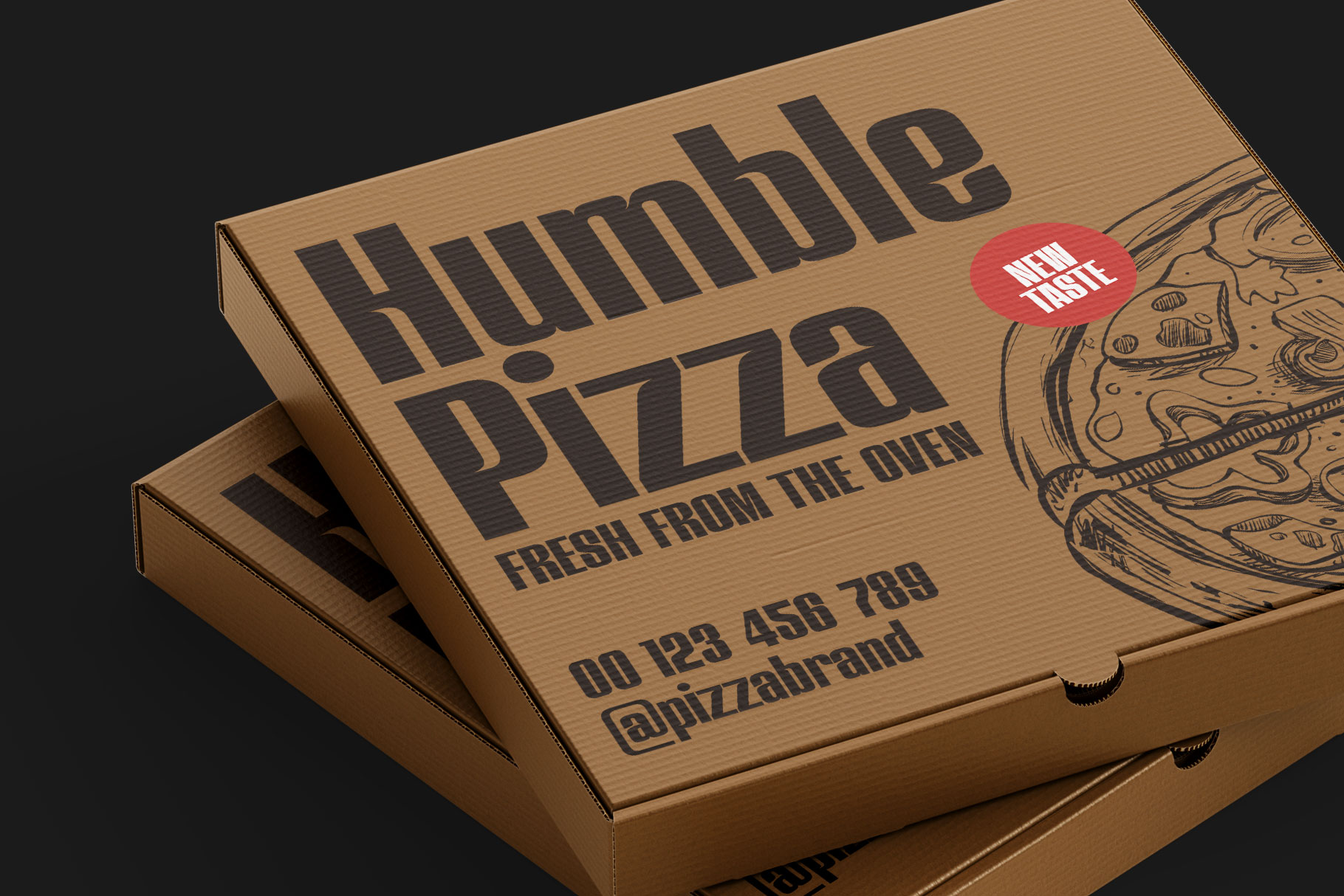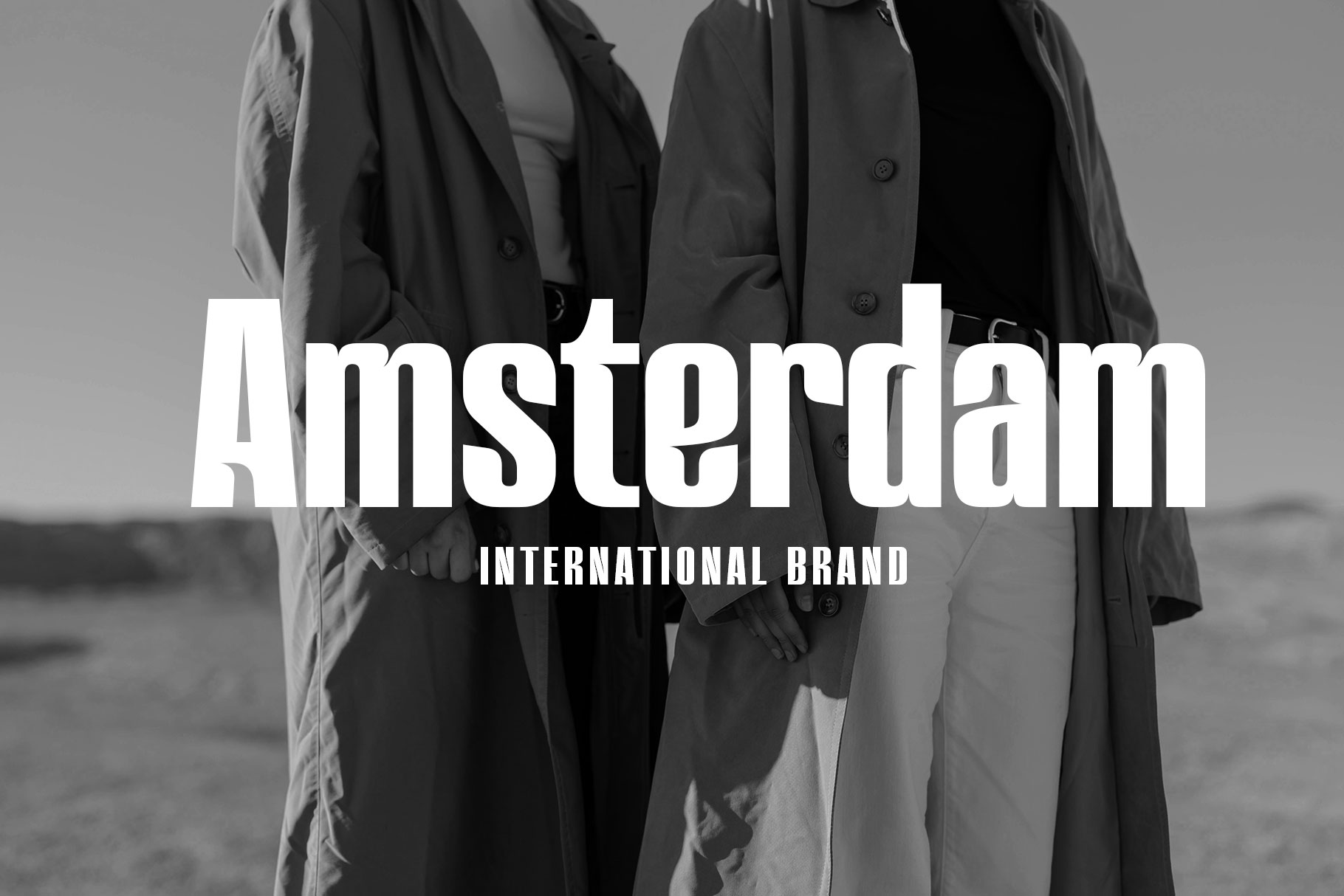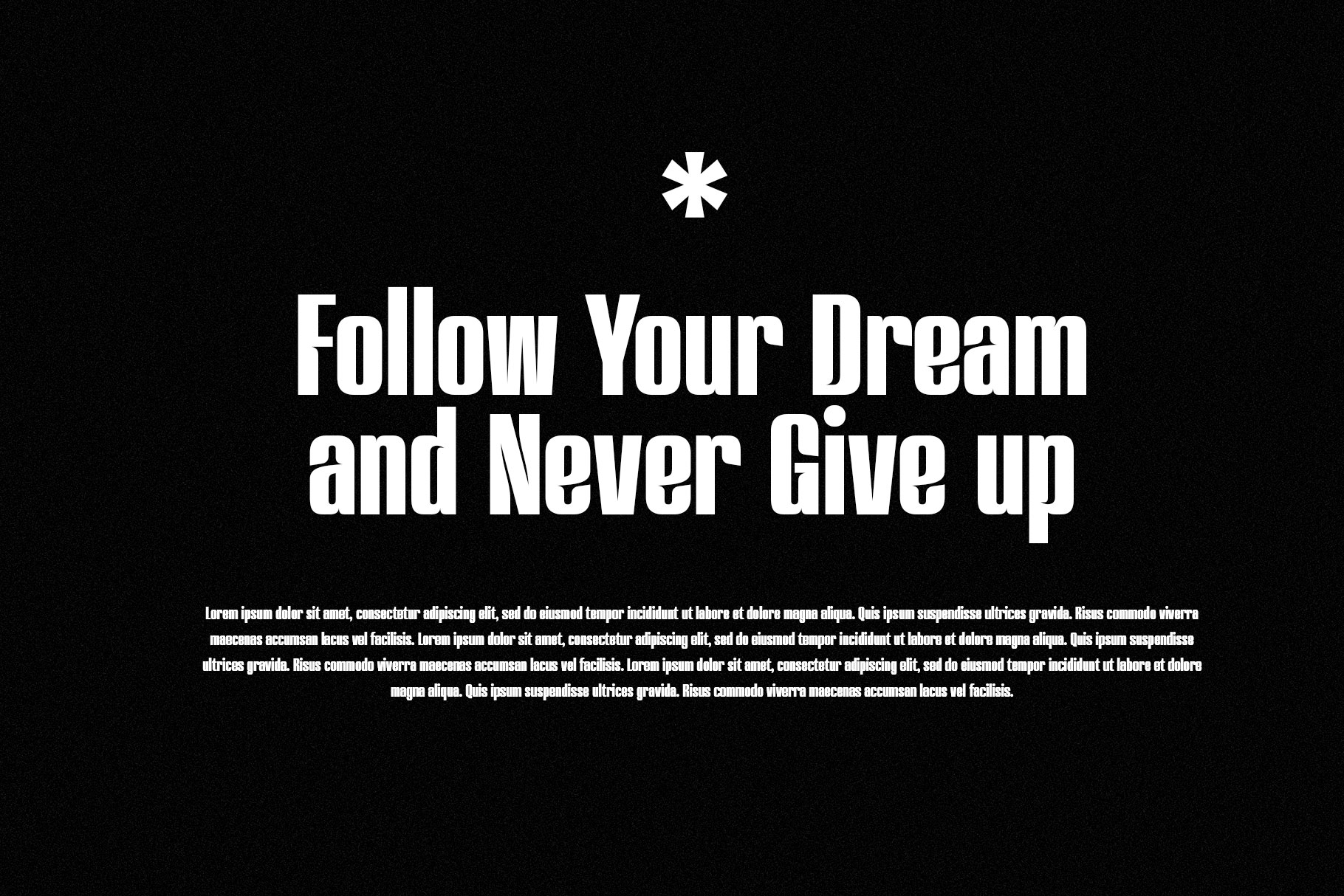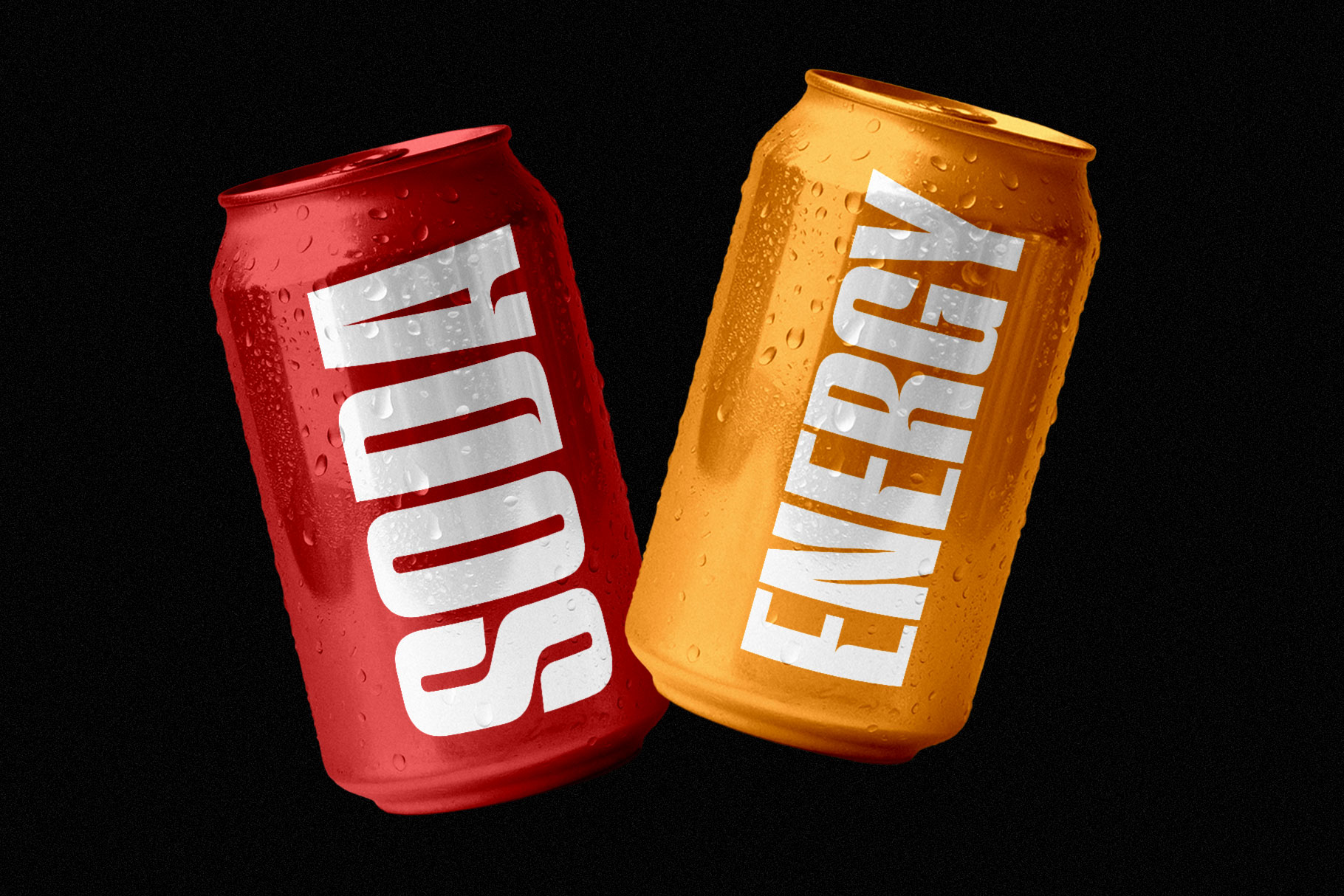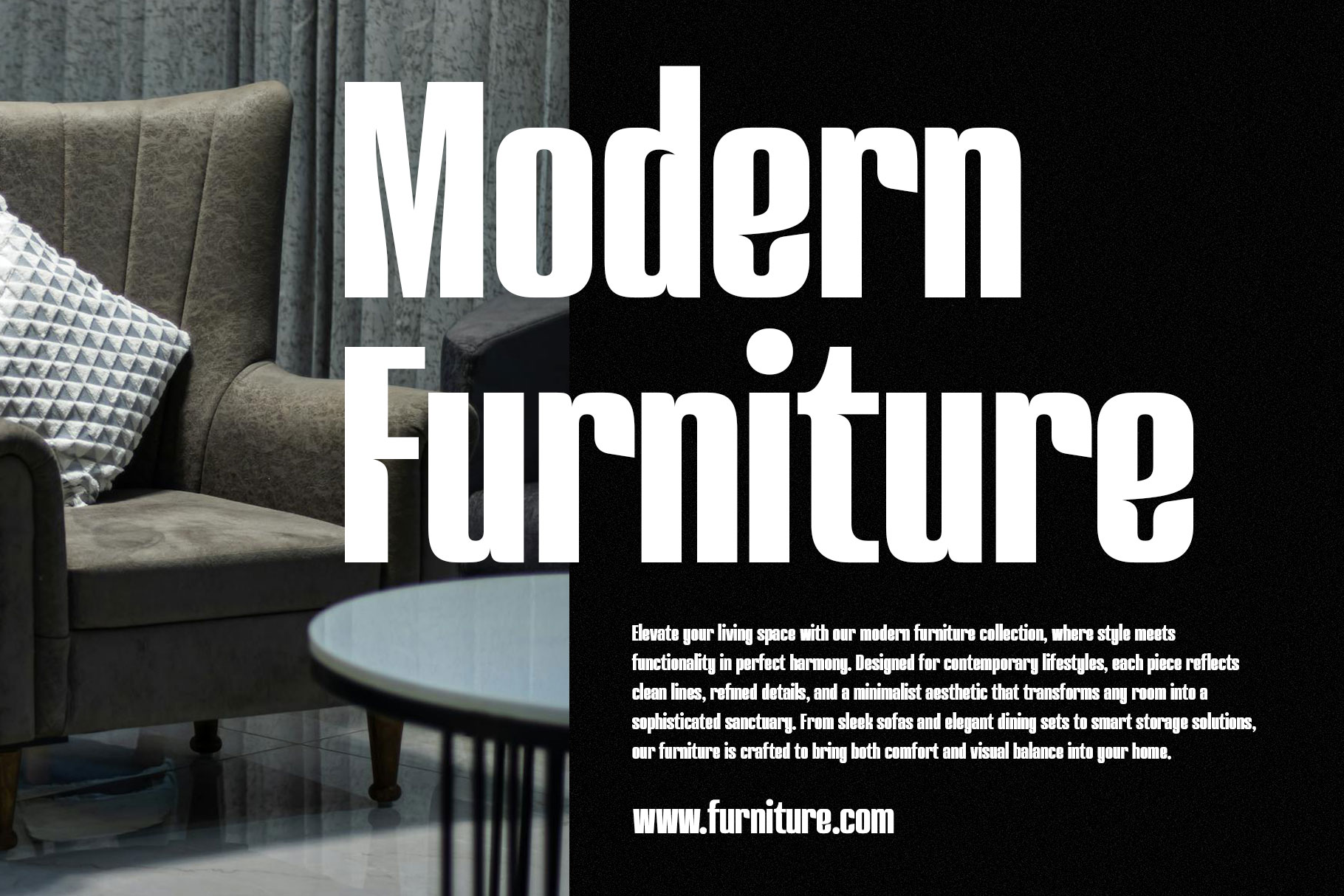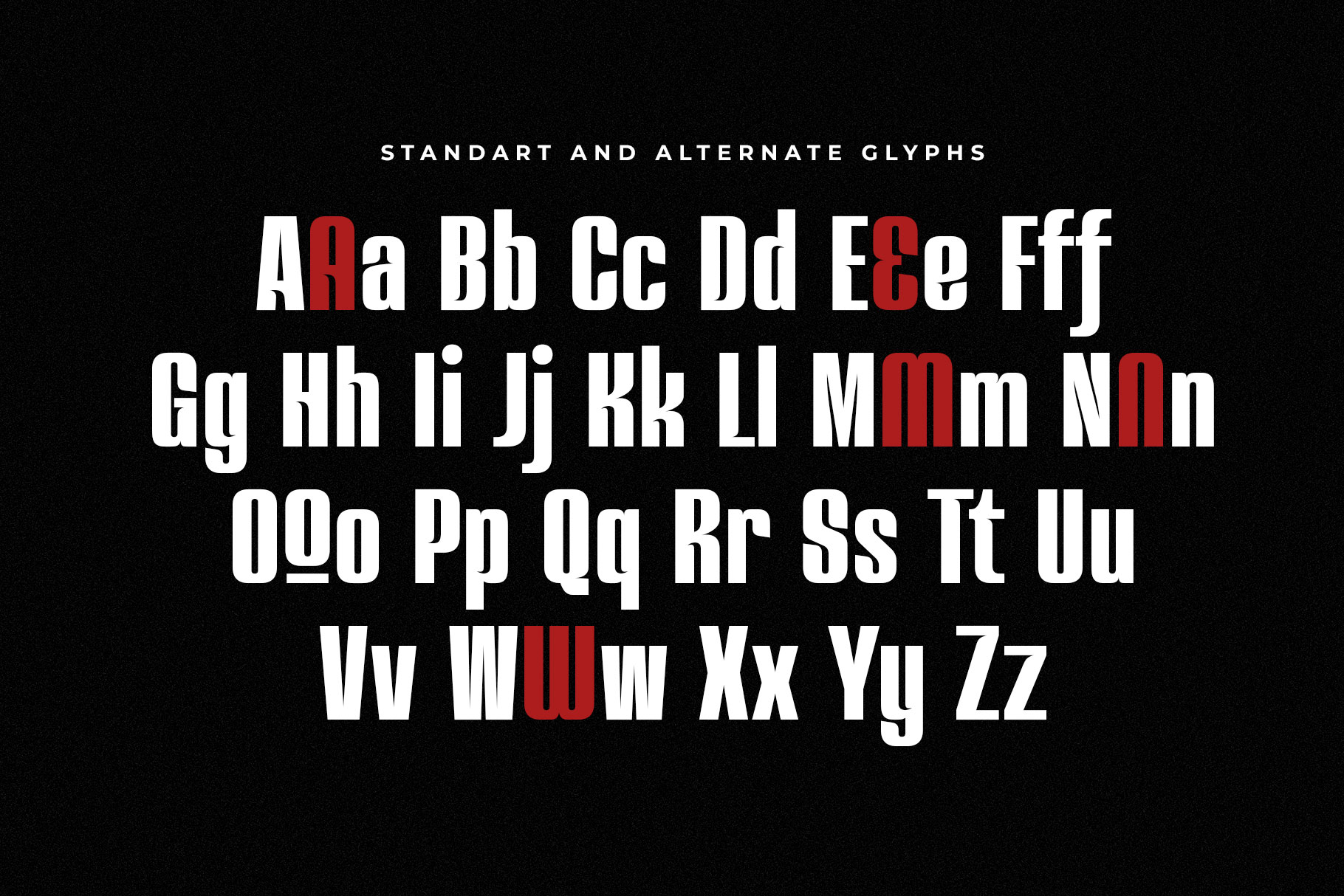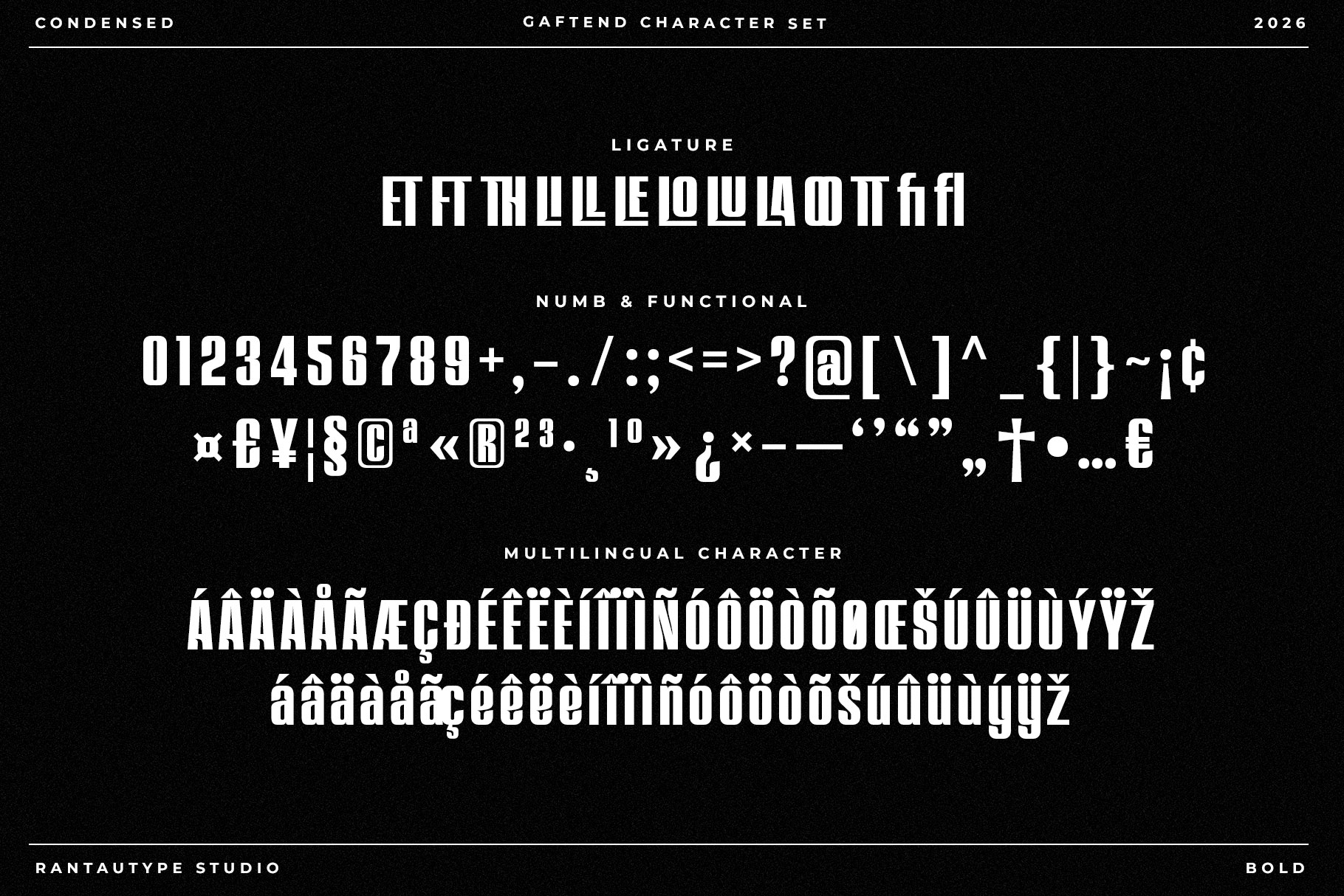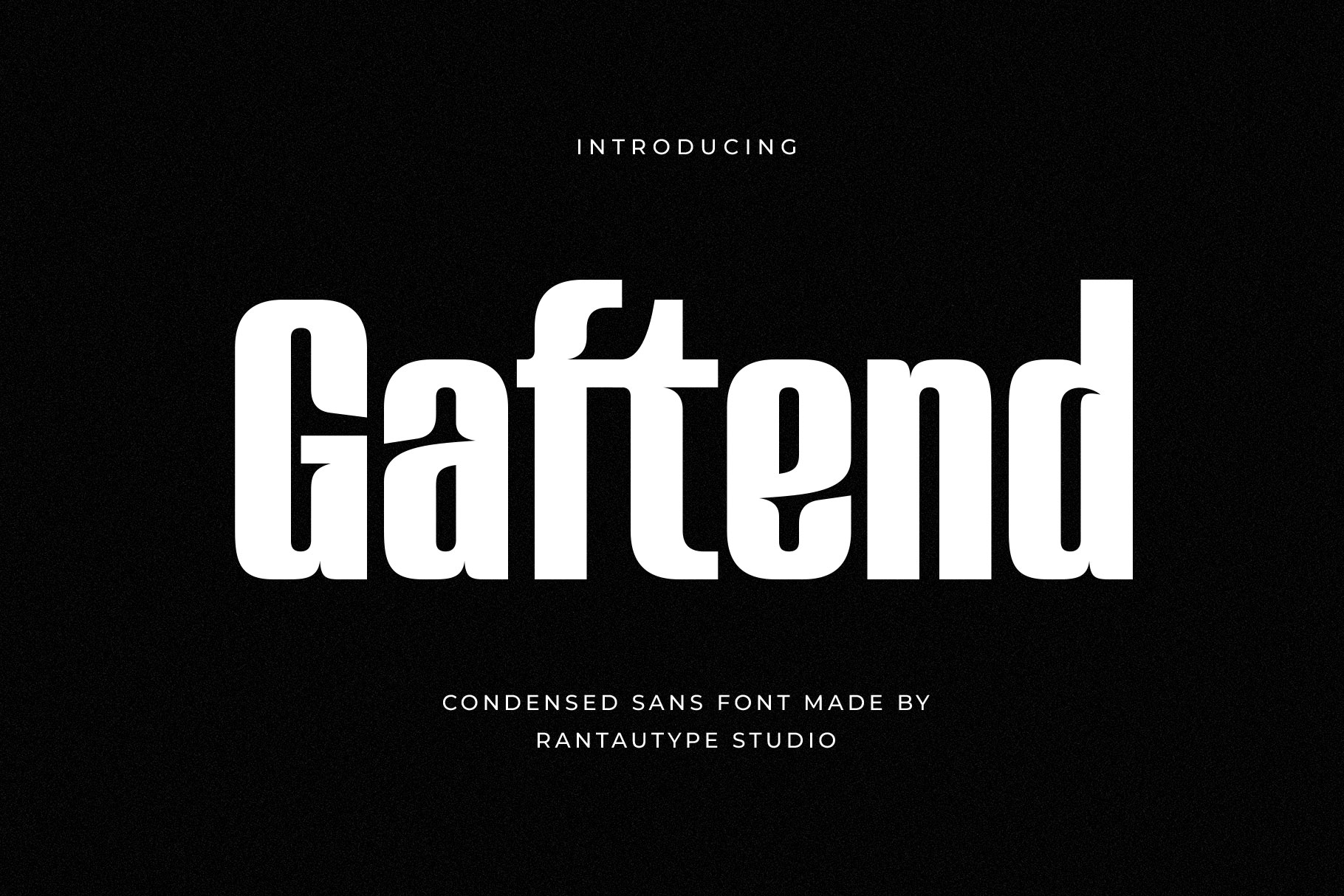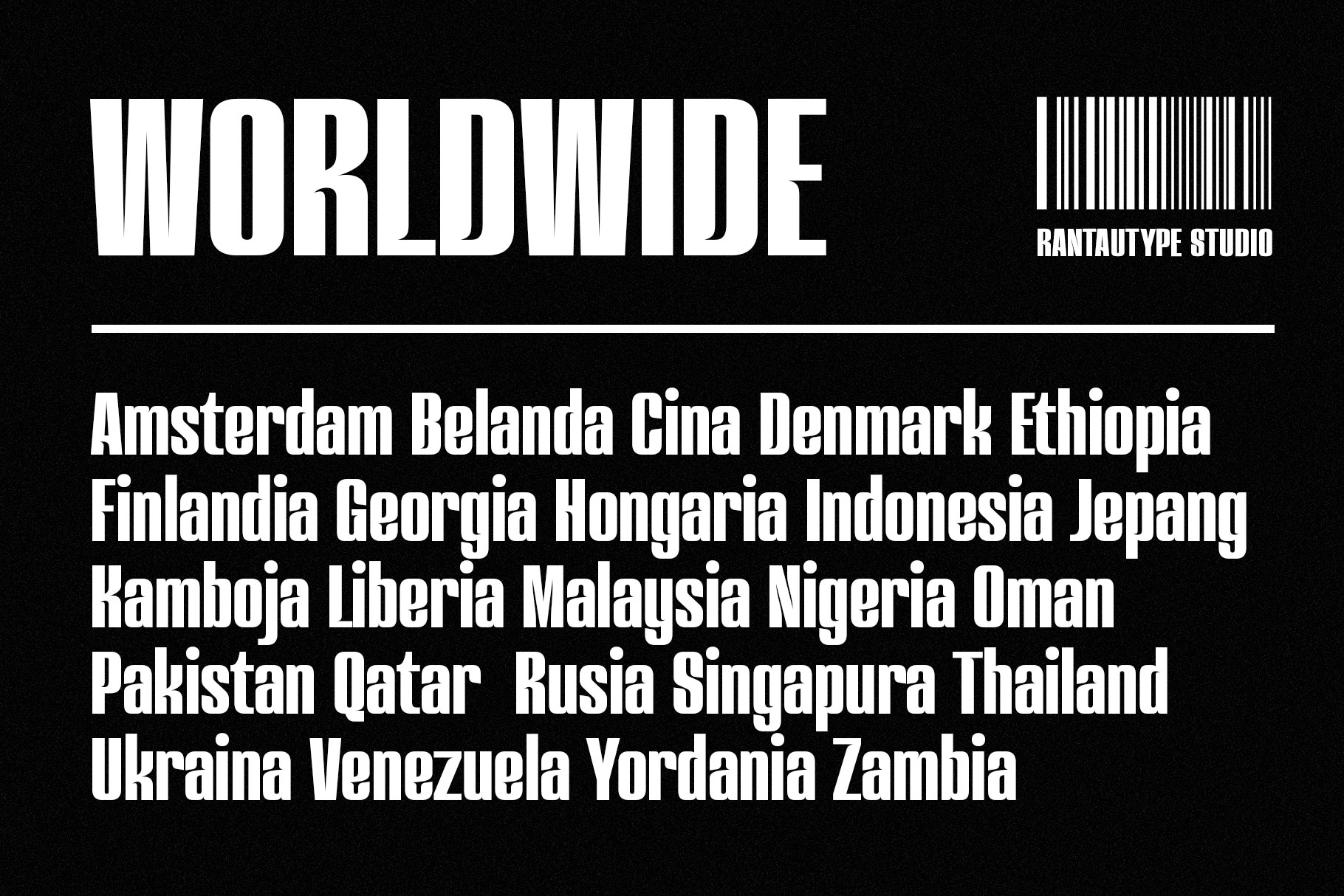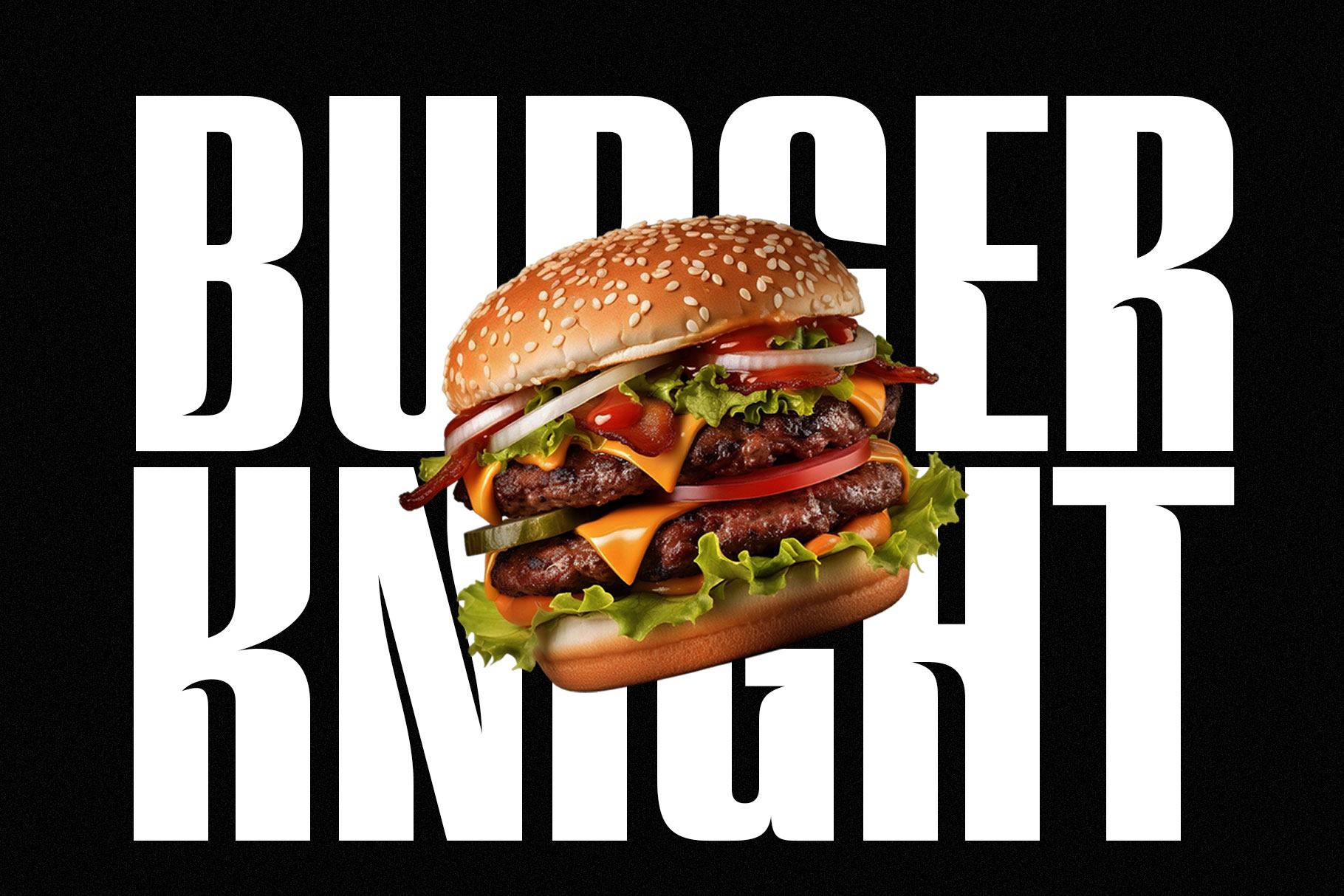
Gaftend Condensed Sans Font
Gaftend is a powerful condensed sans serif typeface is the embodiment of strength, clarity, and modern precision. Designed with tall, narrow proportions, this style maximizes visual impact while conserving space, making it a favorite choice for bold headlines, branding, and editorial layouts. Its streamlined structure creates a commanding presence, allowing each letterform to stand upright with confidence and authority.